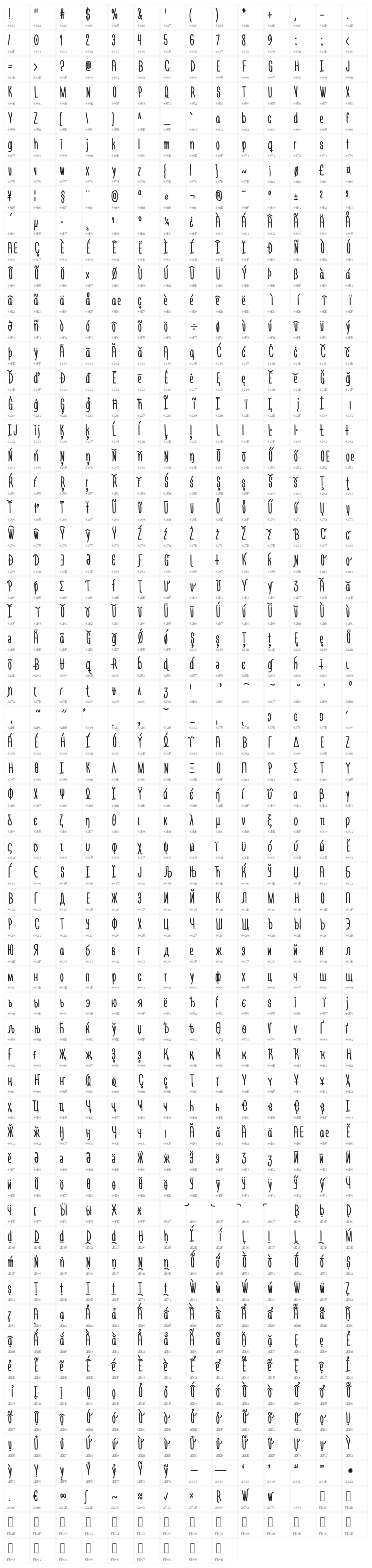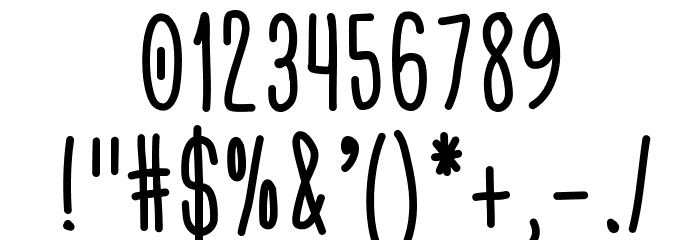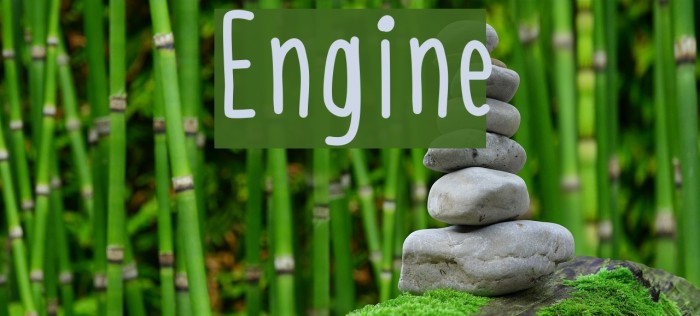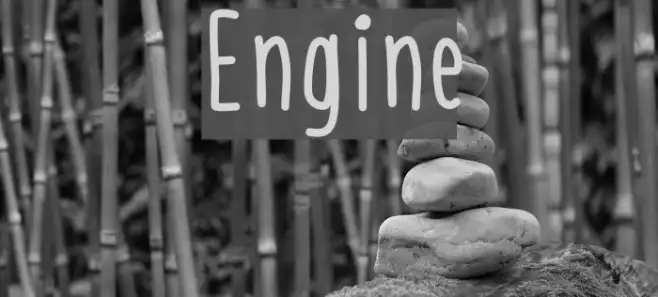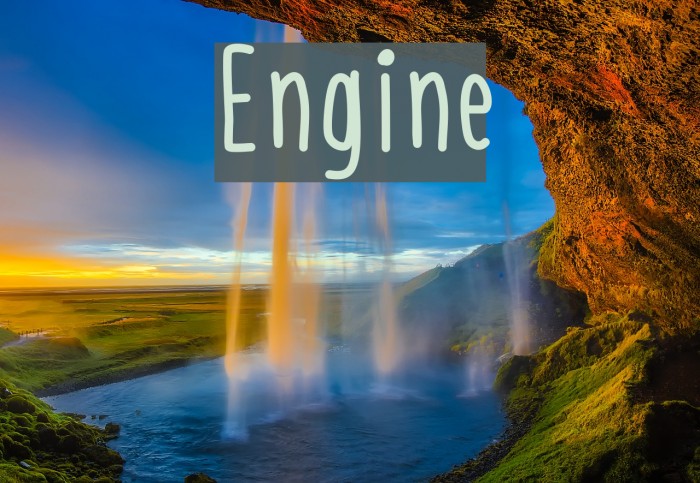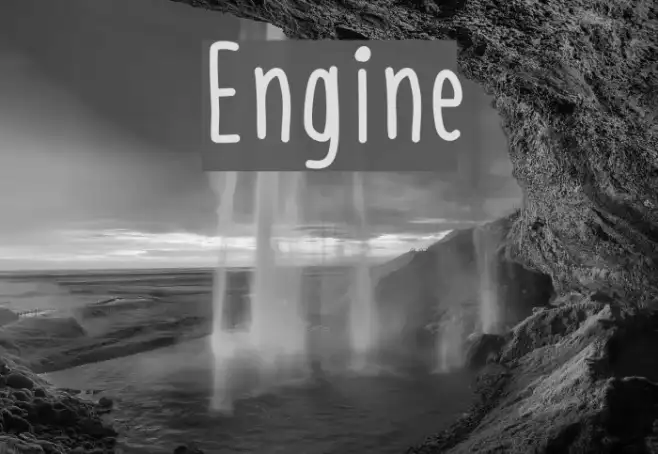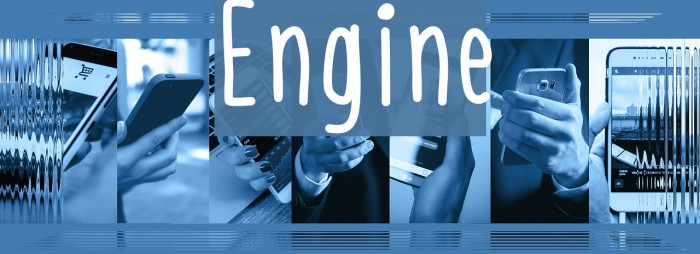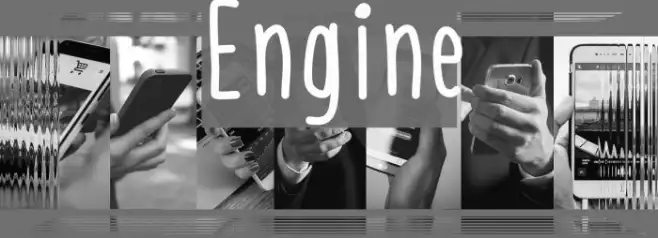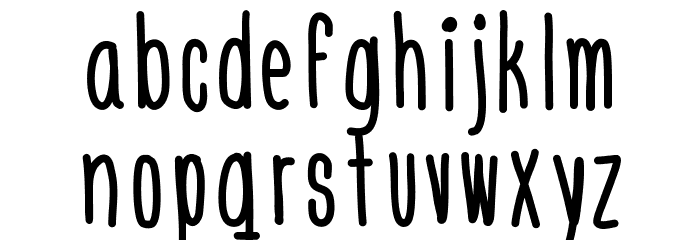
Engine Font
Engine Description
This font features a playful and informal style with tall, narrow letters that have a hand-drawn appearance. The strokes are consistent in width, giving it a uniform look, while the slightly irregular shapes add a whimsical touch. The uppercase and lowercase letters maintain a cohesive design, with rounded edges and a casual feel. The numerals and special characters follow the same aesthetic, making the font versatile for various uses. Its unique charm makes it suitable for creative projects that require a friendly and approachable vibe.
| Proposed Projects | Ideal for children's books, greeting cards, playful branding, and casual invitations. |